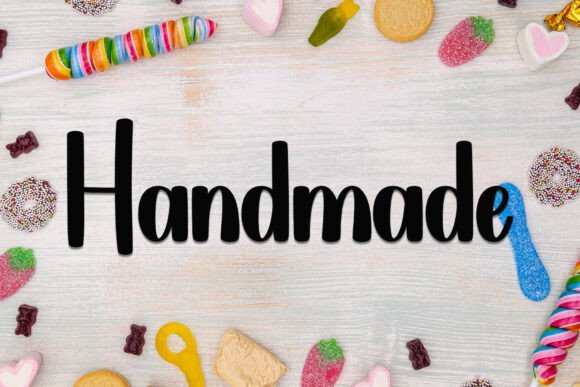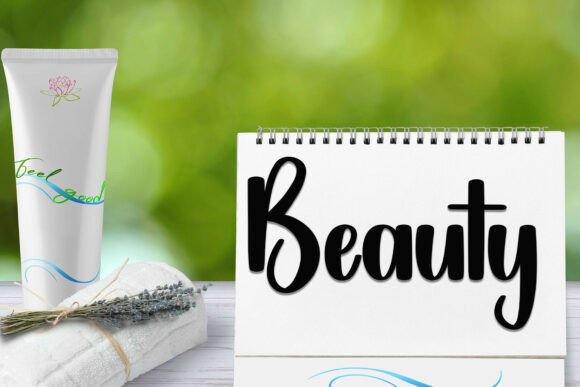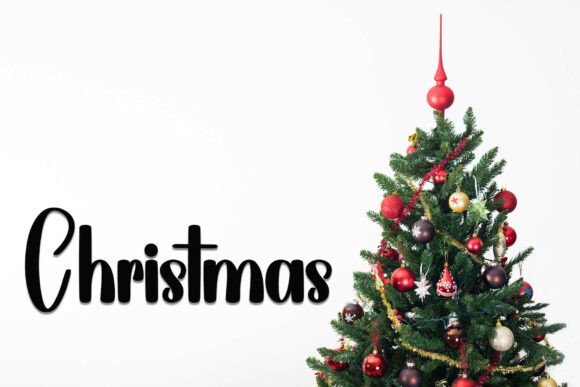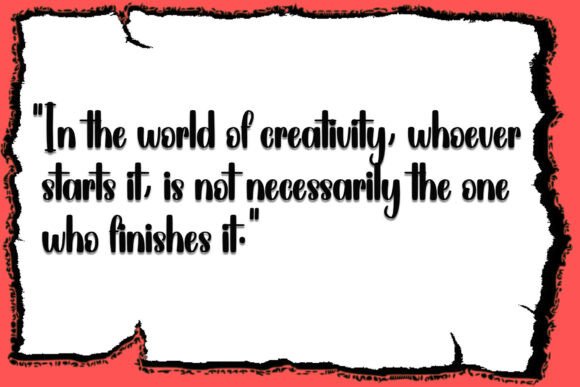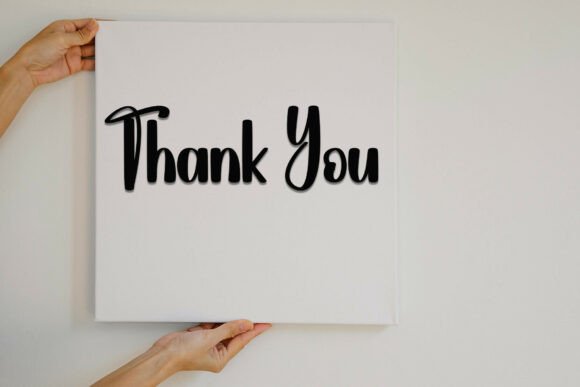
Birdhouse Font: A Sweet and Cursive Handwritten Delight
Are you on the hunt for a font that adds a touch of whimsy and romance to your designs? Look no further than the Birdhouse Font! This beautiful, cursive handwritten font is perfect for a variety of design projects, from branding and logos to wedding materials and greeting cards.
The Characteristics of Birdhouse Font
Birdhouse Font is a sweet and elegant font that boasts a range of characteristics that make it perfect for designers and crafters. Here are just a few of its standout features:
- Cursive and Handwritten: Birdhouse Font has a beautiful, flowing cursive style that gives it a personal and handmade feel.
- Joeful and Romantic: The font’s gentle curves and soft lines add a joyful and romantic touch to any design.
- Versatile: Birdhouse Font is perfect for a wide range of design projects, from formal branding and logos to more casual greeting cards and social media graphics.
- Elegant yet Casual: This font strikes the perfect balance between elegance and casualness, making it perfect for designers who want to add a touch of sophistication to their work without it feeling too formal.
Uses for Birdhouse Font
So, what can you use Birdhouse Font for? The possibilities are endless! Here are just a few ideas to get you started:
- Branding and Logos: Use Birdhouse Font to create a beautiful and memorable logo for your business or brand.
- Wedding Materials: Add a touch of romance and whimsy to your wedding designs, from invitations to save-the-dates.
- Greeting Cards: Create beautiful and heartfelt greeting cards for special occasions like birthdays, anniversaries, and holidays.
- Fashion and Lookbooks: Use Birdhouse Font to add a touch of elegance and sophistication to your fashion designs and lookbooks.
- Marketing and Promotion: Perfect for marketing materials, such as brochures, flyers, and social media graphics.
Why Designers and Crafters Love Birdhouse Font
Designers and crafters love Birdhouse Font for a range of reasons. Here are just a few:
- Easy to Read: Despite its cursive style, Birdhouse Font is easy to read, even at small sizes.
- Highly Versatile: This font can be used for a wide range of design projects, from formal to casual.
- Unique and Eye-Catching: Birdhouse Font has a unique and eye-catching style that will make your designs stand out from the crowd.
- Time-Saving: With Birdhouse Font, you can create beautiful designs quickly and easily, saving you time and effort.
Tips for Using Birdhouse Font
Here are a few tips for using Birdhouse Font in your designs:
- Pair it with Other Fonts: Experiment with pairing Birdhouse Font with other fonts to create a unique and eye-catching combination.
- Use it in Combination with Images: Birdhouse Font looks beautiful when paired with images, especially those with a whimsical or romantic feel.
- Experiment with Colors: Try out different colors and color combinations to see what works best with Birdhouse Font.
- Keep it Simple: Don’t be afraid to keep things simple and elegant with Birdhouse Font – sometimes less is more!
In conclusion, Birdhouse Font is a beautiful and versatile font that is perfect for designers and crafters looking to add a touch of whimsy and romance to their designs. With its cursive and handwritten style, joyful and romantic feel, and highly versatile nature, it’s no wonder that Birdhouse Font is a popular choice for a wide range of design projects. Whether you’re creating branding materials, wedding designs, or greeting cards, Birdhouse Font is sure to impress.